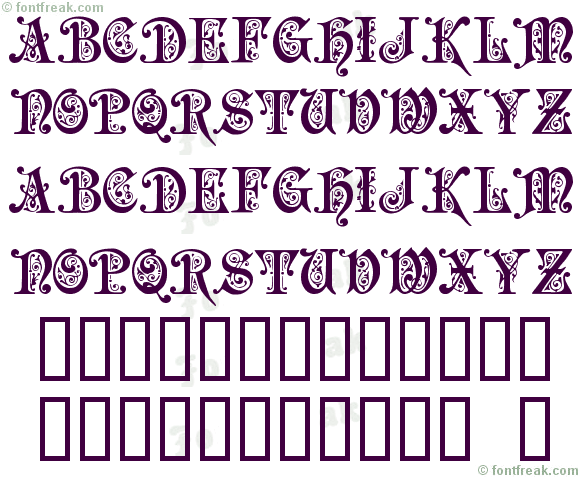
Preciosa
Preciosa by Listemageren is a decorative display font that captivates with its intricate visual style. Introduced in 1998, this freeware font is characterized by its playful and whimsical forms, featuring a blend of bold strokes and delicate curves. The font exhibits a medium stroke weight with notable contrast, giving it a dynamic presence. Each letter is adorned with decorative elements, including flourishes that add a sense of artistry and charm, making it an ideal choice for projects that call for a touch of creativity.
Preciosa excels in various applications, particularly where a unique aesthetic is desired. It is perfect for wedding invitations, where its fanciful design can enhance the romantic theme. Additionally, it shines on movie posters, capturing attention with its distinctive flair. Restaurant menus can also benefit from the font’s artistic qualities, drawing diners in with an inviting presentation. Content creators and graphic designers looking to add a touch of personality to their work will find Preciosa particularly appealing for branding elements and promotional materials.
The target audience for Preciosa includes graphic designers, small business owners, and content creators who seek to infuse their projects with a sense of originality. Whether used in digital or print formats, this font offers versatility that can elevate any design.
What sets Preciosa apart is its ability to combine elegance with a playful spirit. This font not only serves functional purposes but also evokes emotion, making it a standout choice for creative projects. For anyone interested in enhancing their design palette, the Preciosa font free download offers an opportunity to explore its unique characteristics and make a lasting impression.